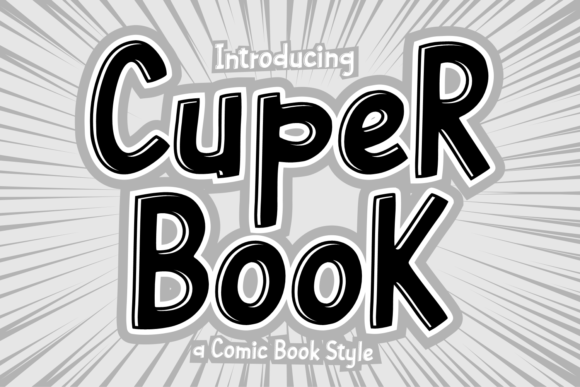
Journey into the whimsical world of Cuper Book, a font that embodies the vibrant energy of comic books and the boundless imagination of childhood. Designed by the creative masterminds at Creative Fabrica Fonts, Cuper Book is a display font that bursts with personality and charm, ready to transform your creative visions into captivating realities.
Picture this: a poster advertising a kids' birthday party, adorned with the playful curves and bold strokes of Cuper Book. The font's inherent cheerfulness radiates from the page, inviting children and adults alike to join in the joyous celebration. Or imagine a t-shirt, emblazoned with a superhero-inspired design, brought to life by the dynamic and eye-catching characters of Cuper Book. The font's playful spirit leaps off the fabric, igniting the imagination and fueling the dreams of young adventurers.
Cuper Book's versatility extends beyond the realm of children's designs. Its playful nature lends itself seamlessly to advertisements, stickers, signage, and apparel, injecting a touch of whimsy and cheer into any creative project. The font's ability to evoke a sense of nostalgia and lightheartedness makes it an ideal choice for branding and marketing materials targeting a youthful audience.
With Cuper Book as your creative companion, you gain access to a world of endless possibilities. Unleash your inner child and let your imagination run wild as you craft designs that resonate with the hearts and minds of your audience. Cuper Book is more than just a font; it's a gateway to a world where laughter, joy, and boundless creativity reign supreme. Embrace the magic of Cuper Book and watch as your designs transform into captivating masterpieces.